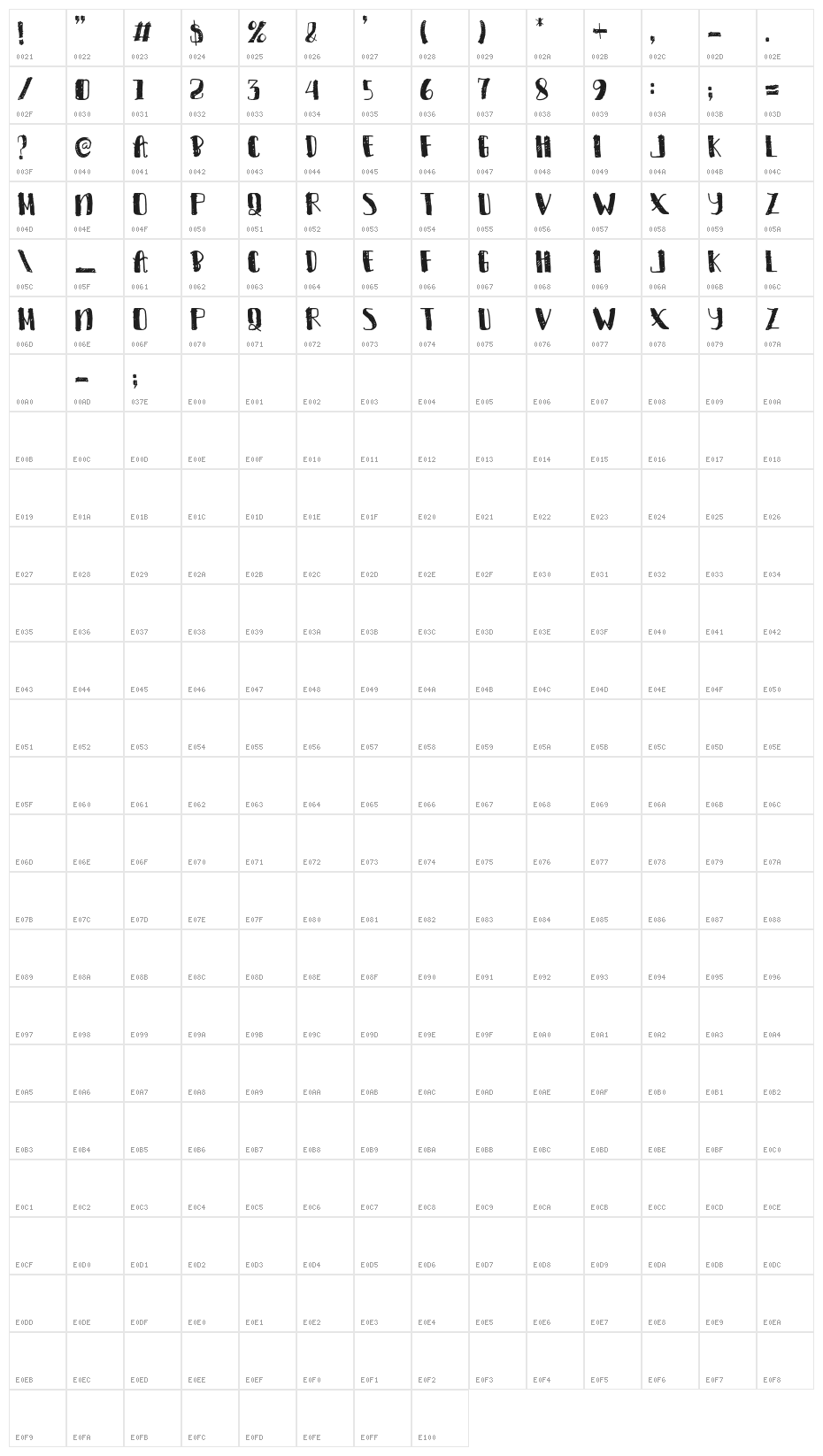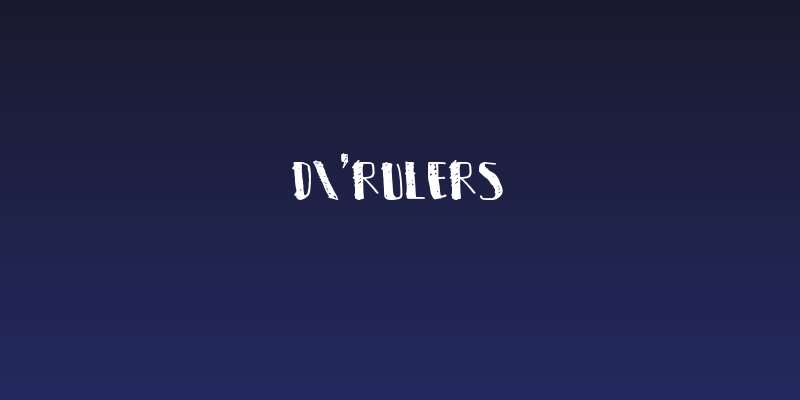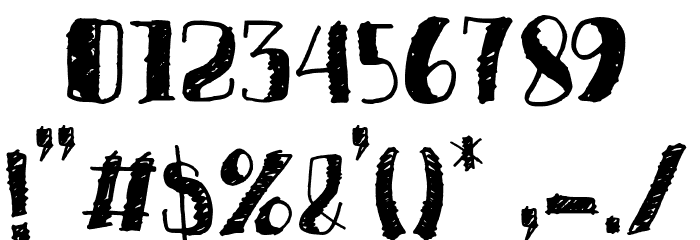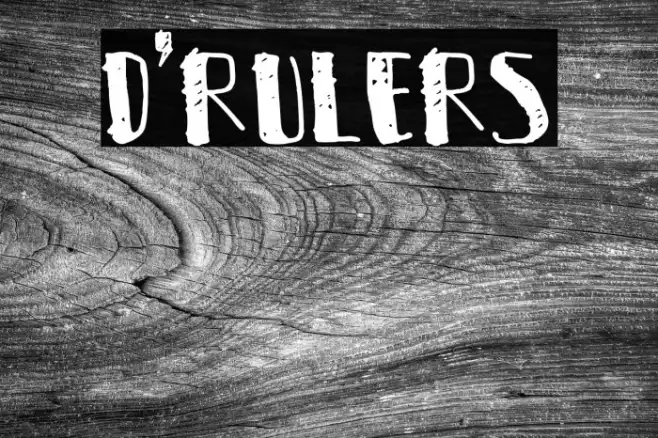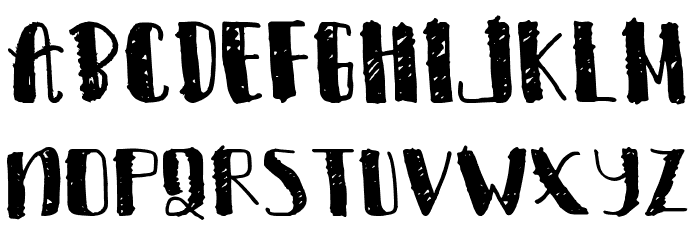
D'Rulers Font
D'Rulers Description
This font features a bold, distressed style with a hand-drawn appearance. The characters are irregular and have a rough texture, giving them a grunge or vintage feel. The uppercase and lowercase letters maintain a consistent style, with thick strokes and uneven edges. Numbers and special characters follow the same aesthetic, adding to the overall cohesive look. The font's unique, artistic design makes it stand out, suitable for projects that require a bold and unconventional typeface.
| Overall Style | Vintage, Grunge |
| Proposed Projects | Ideal for posters, album covers, branding, and any design that requires a bold, artistic touch. |